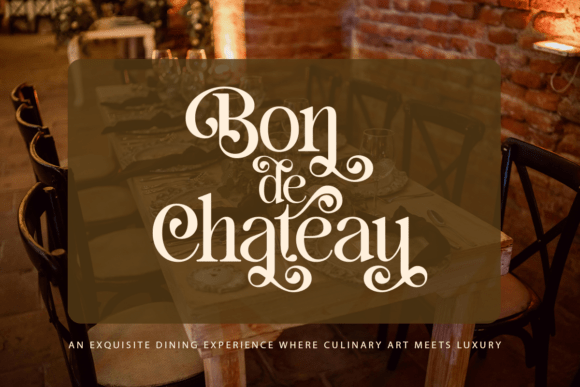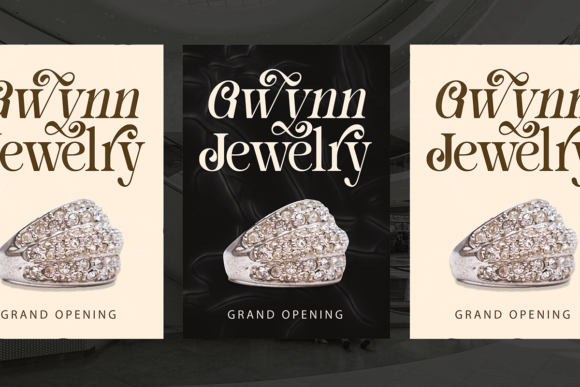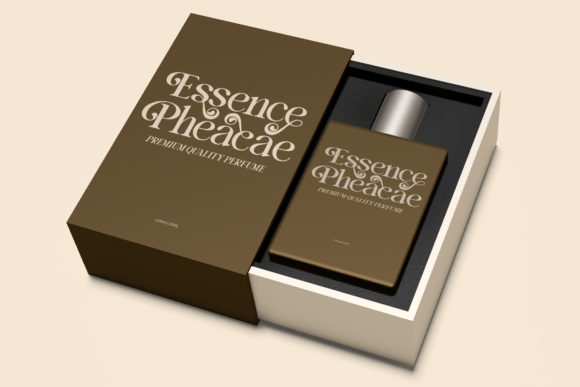
Introducing Delutiya: The Modern Elegant Serif Font You Need
Have you ever been in the middle of a design project, and suddenly, you’re stuck on finding the perfect font? I recall a wedding invitation design project where I spent hours searching for a serif font that exuded elegance and sophistication. That’s when I stumbled upon Delutiya, a modern elegant serif font that instantly elevated my design. In this article, I’ll share my experience with Delutiya, its features, and how to make the most of it in your designs.
A Personal Encounter with Delutiya
I was working on a wedding invitation design, and my client wanted a font that was both elegant and easy to read. After hours of searching, I finally found Delutiya, and it was love at first sight! The font’s classic serif design, combined with its modern twist, made it perfect for the project. I was impressed by its versatility, and I knew I had to share my experience with fellow designers and creative hobbyists.
Delutiya: A Closer Look
What I Love About Delutiya
- ✨ Elegant and sophisticated design: Delutiya’s serif design is perfect for creating elegant and sophisticated designs, from wedding invitations to luxury brand logos.
- ✅ Easy to read: The font is clear and legible, making it perfect for body text and headings.
- ✨ Alternates and OpenType features: Delutiya comes with a range of alternates and OpenType features, allowing you to customize your text and add visual interest.
- ✅ Versatile: Delutiya can be used for a wide range of design projects, from print to digital.
While Delutiya is an excellent font, there are a few things to keep in mind:
- ⚠️ Limited availability of certain characters: Some characters, like ligatures, may not be available in all versions of the font.
- 🤔 Requires careful kerning: As with any serif font, kerning can be a challenge, especially when using Delutiya at smaller sizes.
The Story Behind Delutiya
Delutiya was designed by a team of typographers who wanted to create a font that would bring a touch of elegance to any design project. Inspired by classic serif fonts, they added a modern twist to create a unique and versatile font.
Q: Is Delutiya suitable for body text?
A: While Delutiya is elegant and easy to read, it may not be the best choice for long-form body text. Consider using a font with more generous x-height and clearer letterforms for better readability.